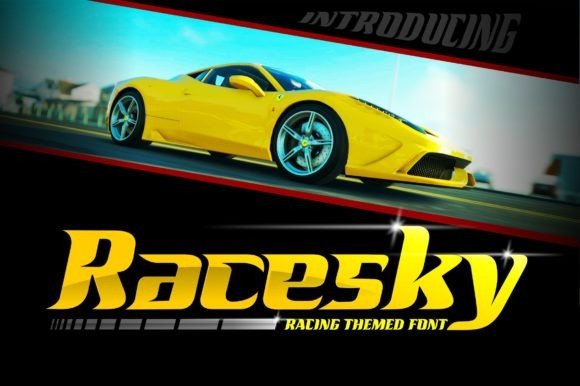
Racesky Font
Racesky Display Font is a racing-themed font but is still suitable for other purposes. This font is created in two bevel styles to give different choices to each user. This font is also accompanied by open type features in the form of kerning, ligature, and stylistic alternate to make it easier to choose styles and shapes. Consistent lettering is also an advantage that makes it easier for you to produce a perfect and stylish work.